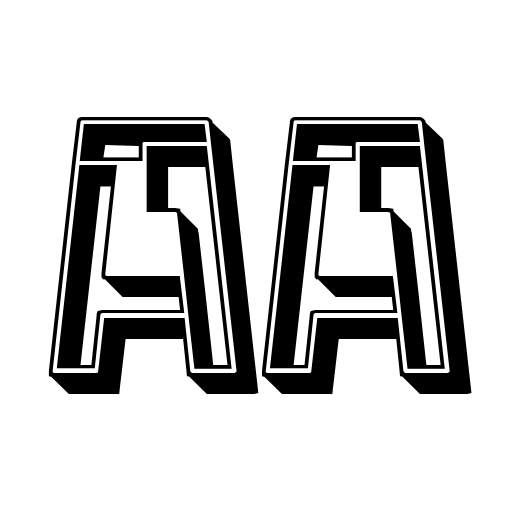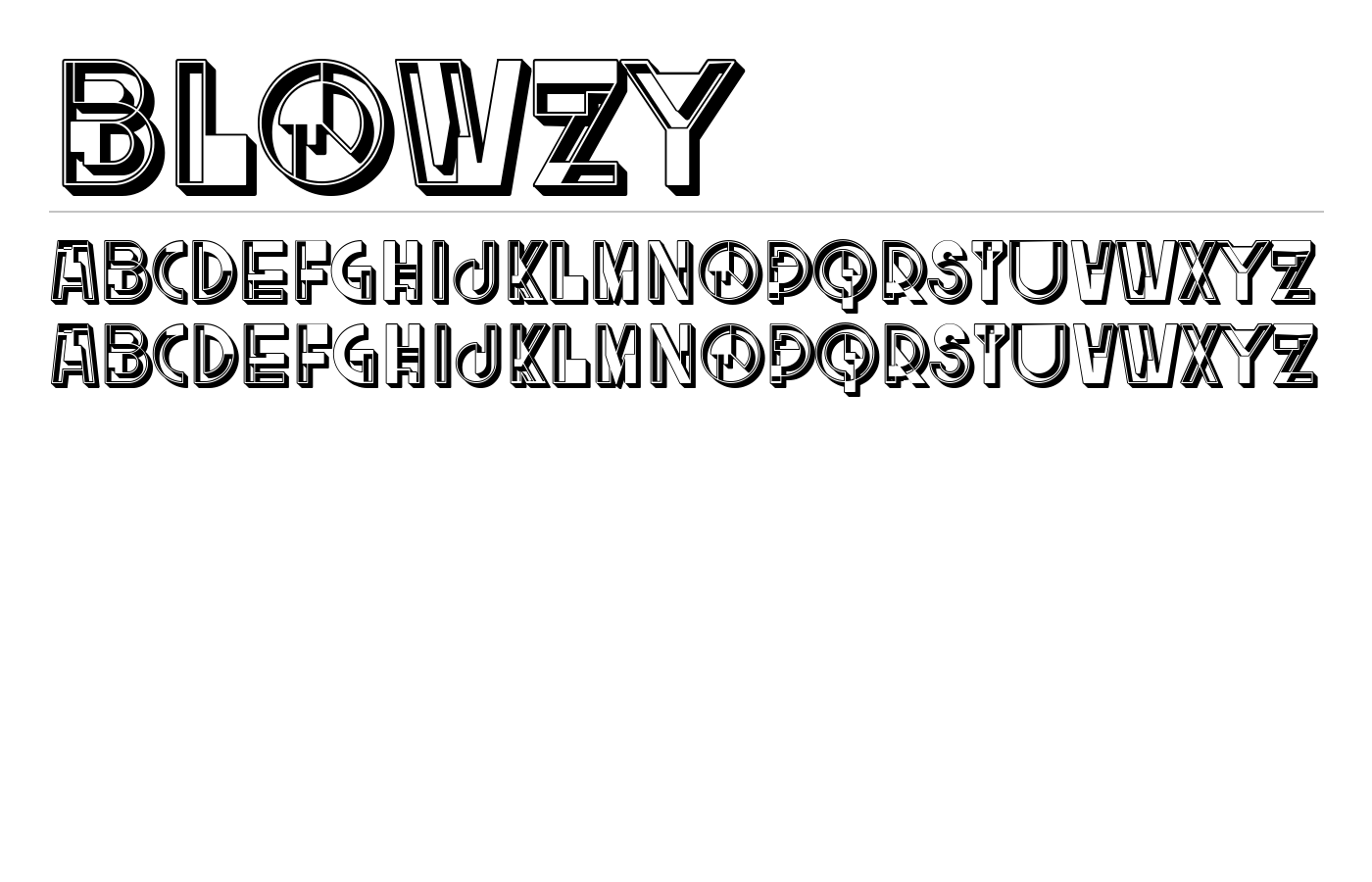
Blowzy Font is a bold, decorative sans-serif typeface with a striking three-dimensional effect created by layered shadows and geometric shapes. Its uppercase letterforms are wide and blocky, featuring intricate internal lines that add a playful yet structured personality, making it ideal for eye-catching headlines, logos, and creative branding projects where a strong visual statement is needed.
Blowzy Font
About Blowzy Font